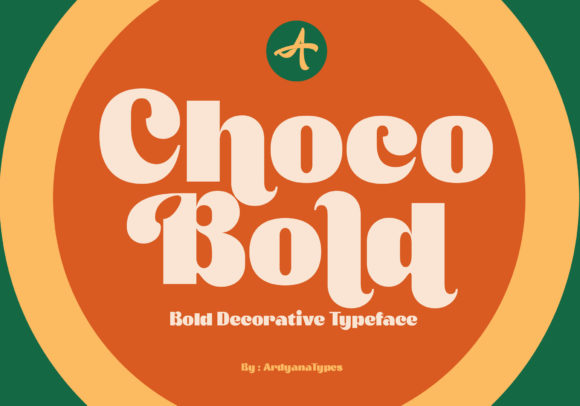
Journey back in time with Choco Bold Font, a nostalgic display font that oozes vintage charm. This thick-lettered beauty will transport your designs to an era of classic elegance, adding a touch of timeless appeal.
Unleash your creativity and let Choco Bold Font work its magic on your designs. Its bold and eye-catching presence will command attention, making your projects stand out from the crowd. Whether you're crafting logos, posters, retro-inspired branding, or anything in between, Choco Bold Font is your ticket to design excellence.
As a display font, Choco Bold Font thrives in large-scale applications where its bold strokes and vintage flair can truly shine. Imagine your website headlines, social media graphics, or even product packaging adorned with this font—they'll exude an undeniable aura of sophistication and charm.
But Choco Bold Font's versatility doesn't end there. Its thick letters and retro style add a touch of whimsy and character to smaller-scale designs as well. Think invitations, greeting cards, or even clothing designs—Choco Bold Font will infuse them with a unique and memorable touch.
At its core, Choco Bold Font is more than just a collection of letters; it's a gateway to a bygone era, a font that evokes nostalgia and sparks imagination. Its thick strokes and vintage charm will give your designs an instant touch of history, making them feel both familiar and fresh.
So why settle for ordinary fonts when you can embrace the timeless elegance of Choco Bold Font? Download it today and embark on a creative journey that will transport your designs to a world of vintage charm and visual delight. Welcome to a world where the past meets the present in perfect harmony.